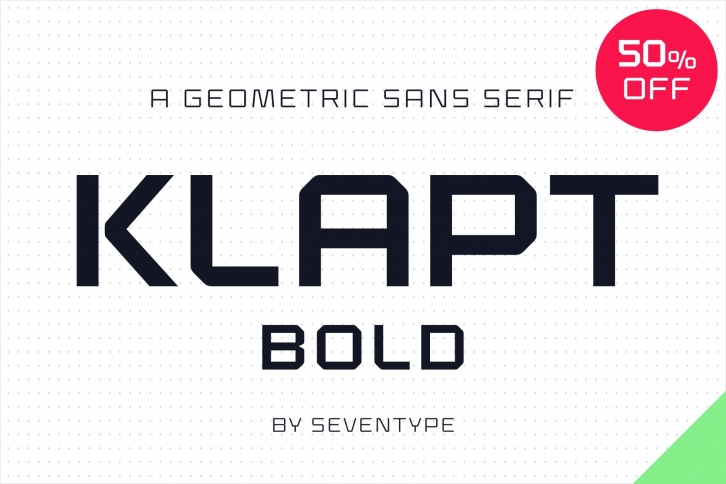
Klapt is a geometric sans serif family ideal to when you need to create an impact and stand out from the crowd.
It is well suited for designs ranging from branding and corporate identity to editorial design and also web design.
It is great for display purposes especially for headlines, posters, magazines, book covers, logos... you name it!